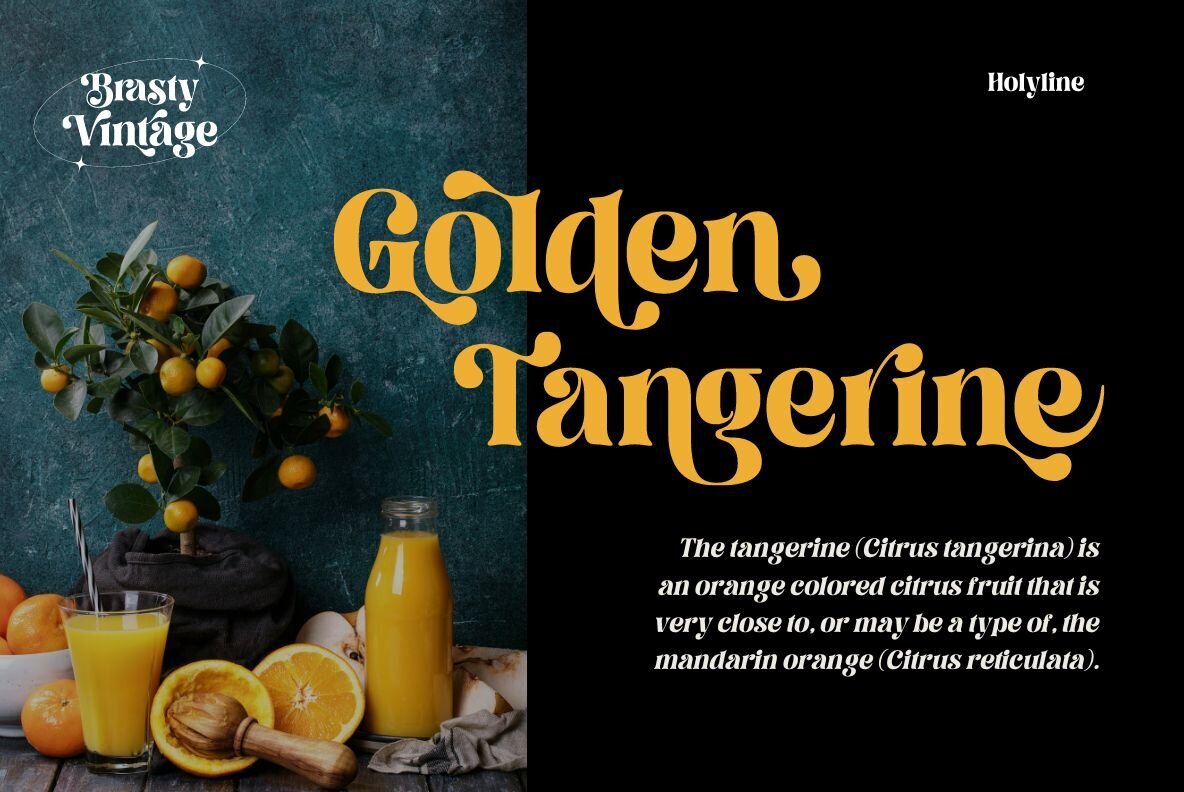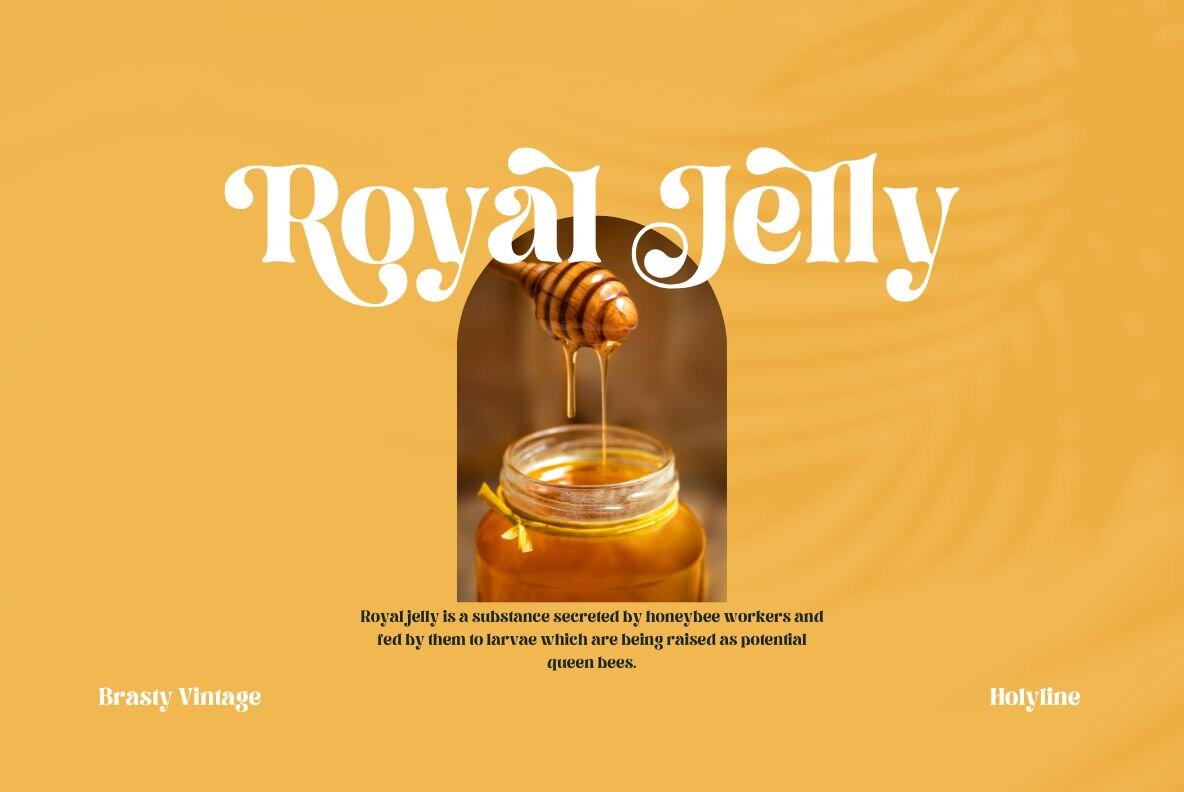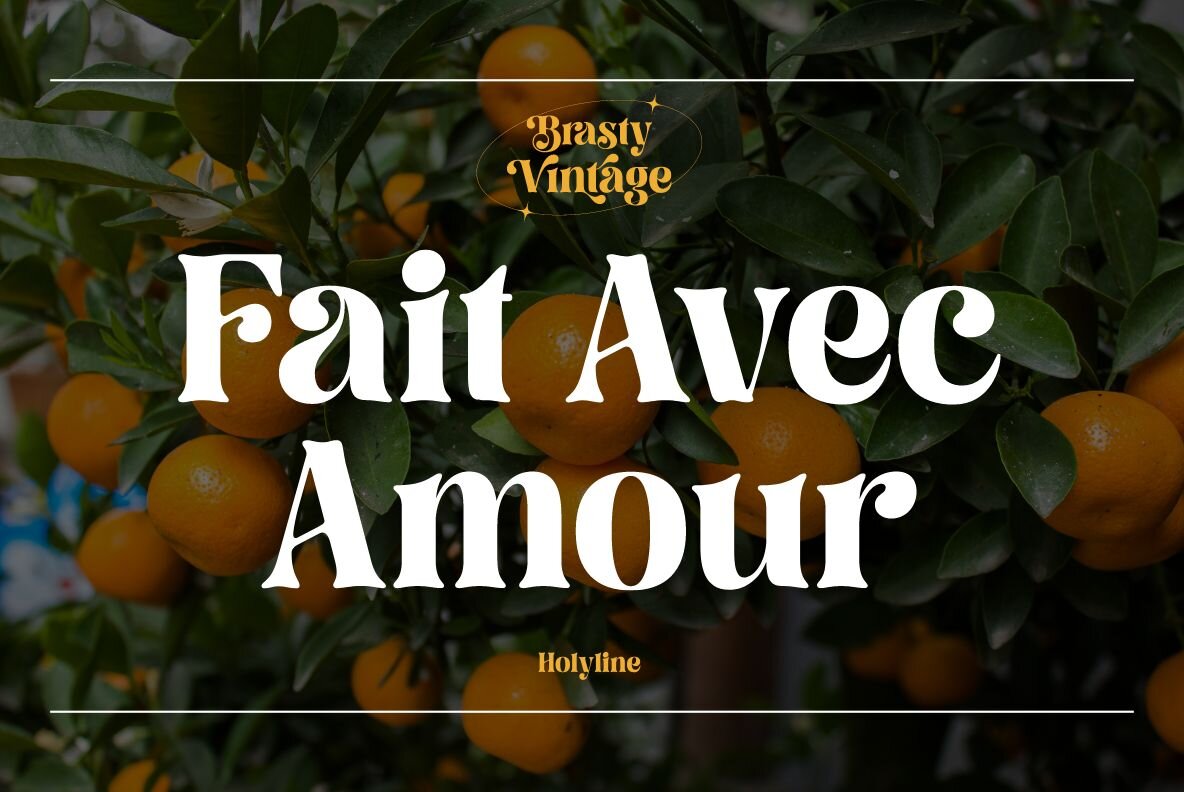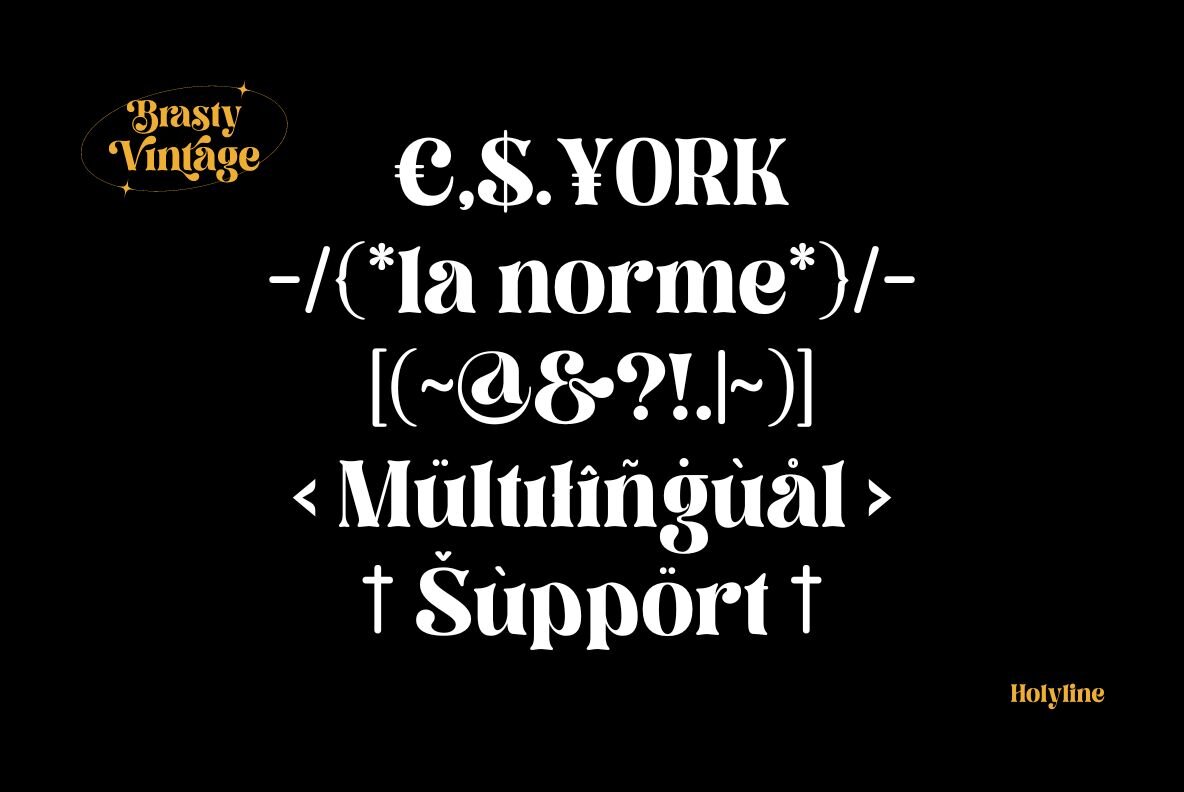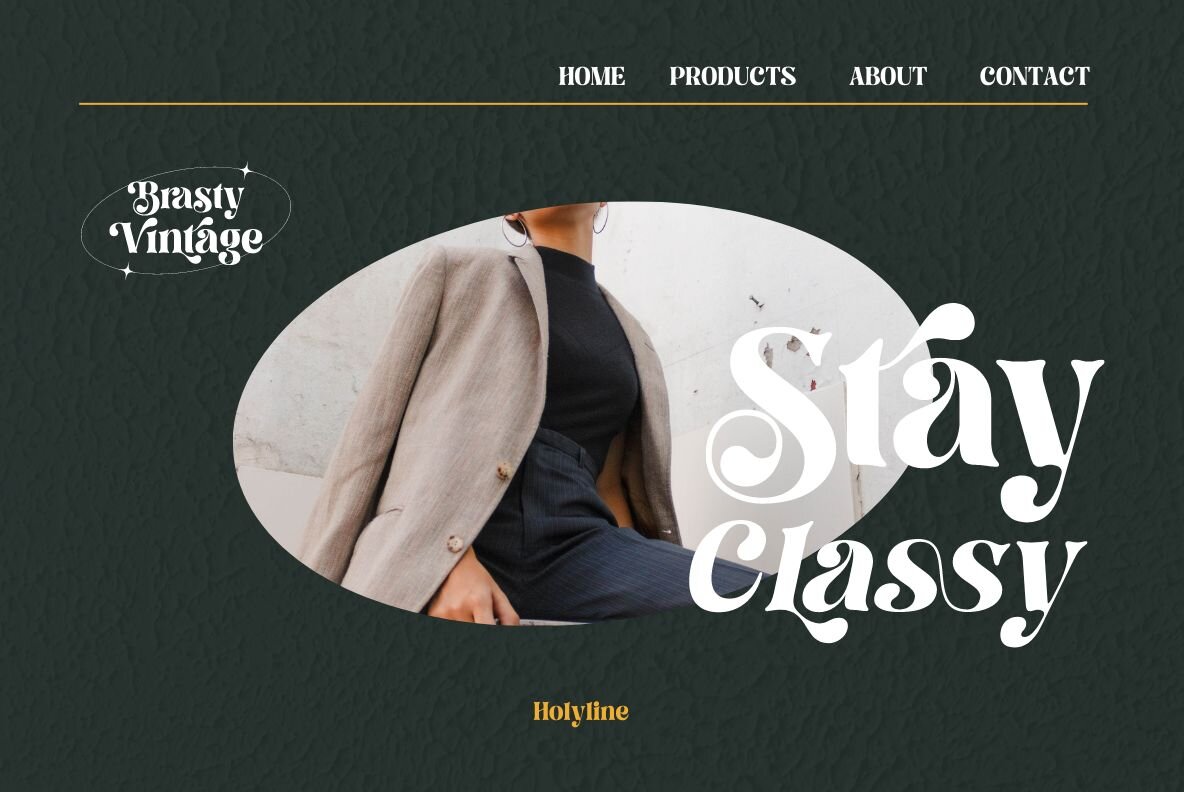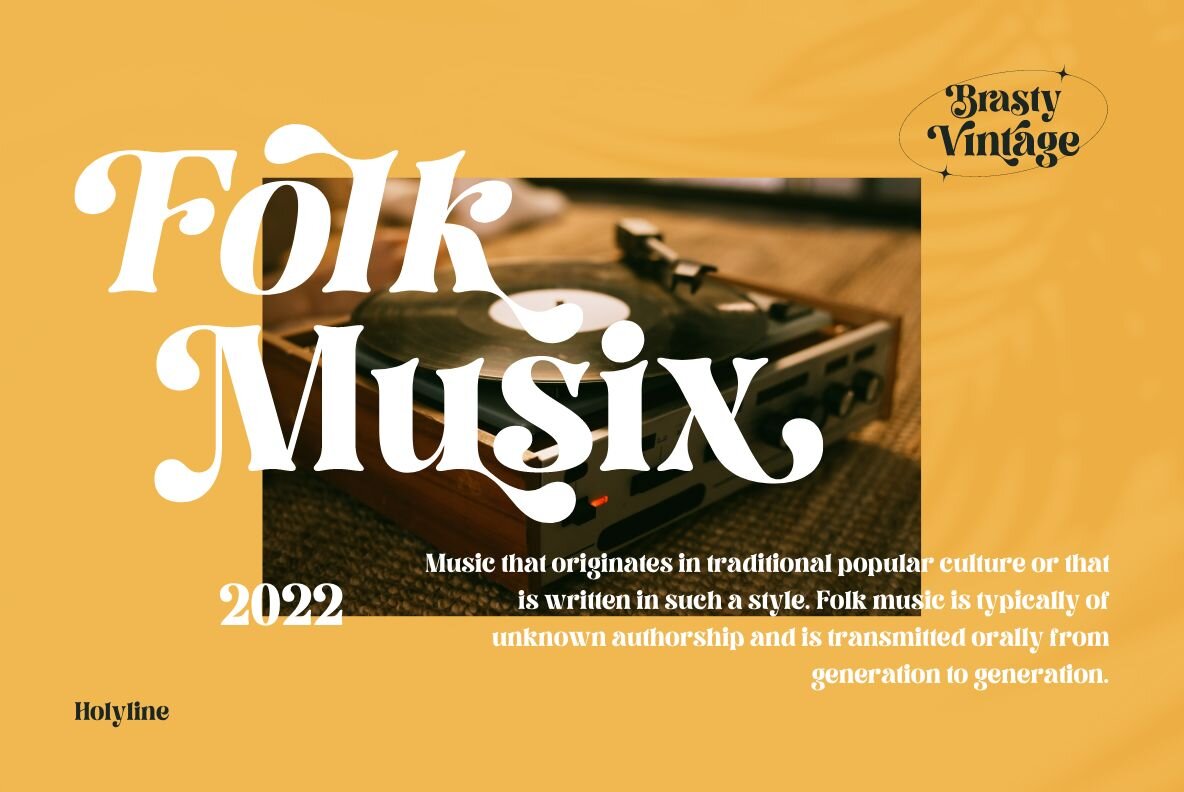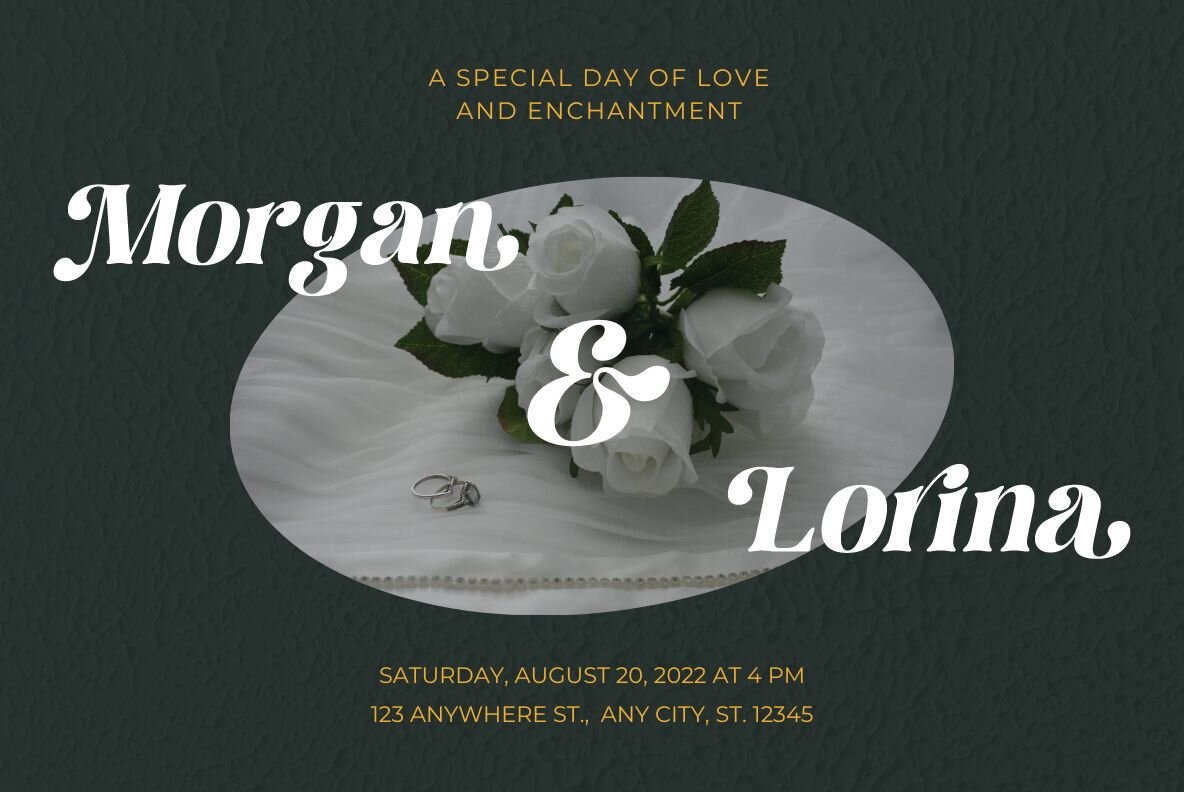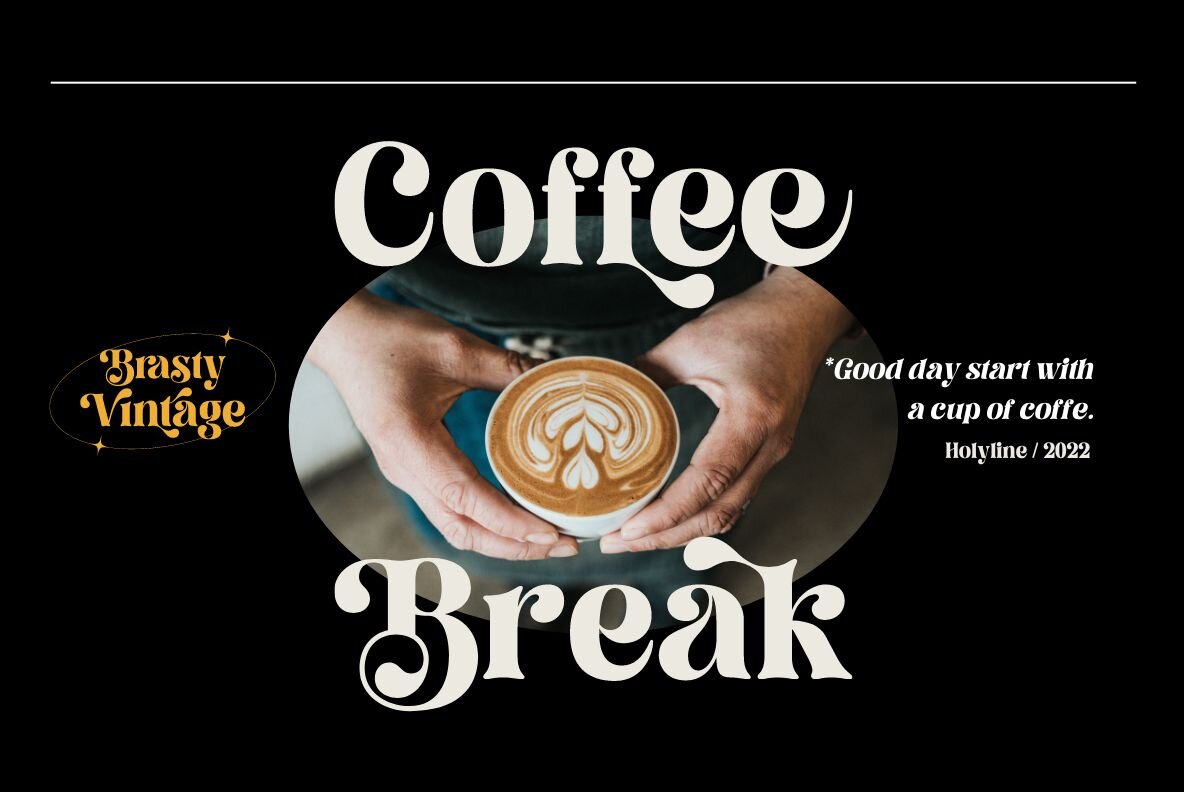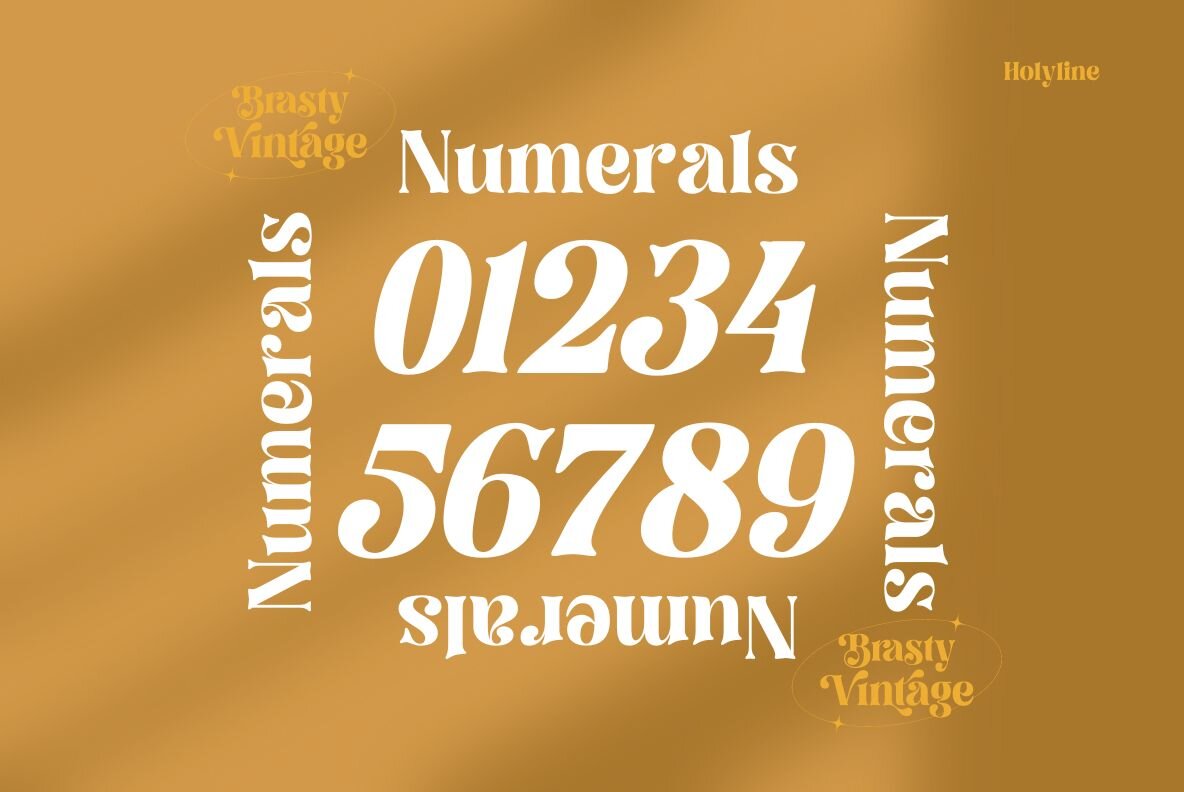
Brasty Font
The Brasty Vintage typeface by Holyline Design combines retro aesthetics in both regular and oblique styles. This unique and bold serif font offers over 50 alternates, enabling you to craft comprehensive and visually stunning designs with ease. Whether you're looking to refresh your project or introduce something innovative, Brasty Vintage is the typeface to explore. Enjoy experimenting and creating!Brasty Vintage: Retro Serif with Bold Personality
Ideal for Varied Creative Projects